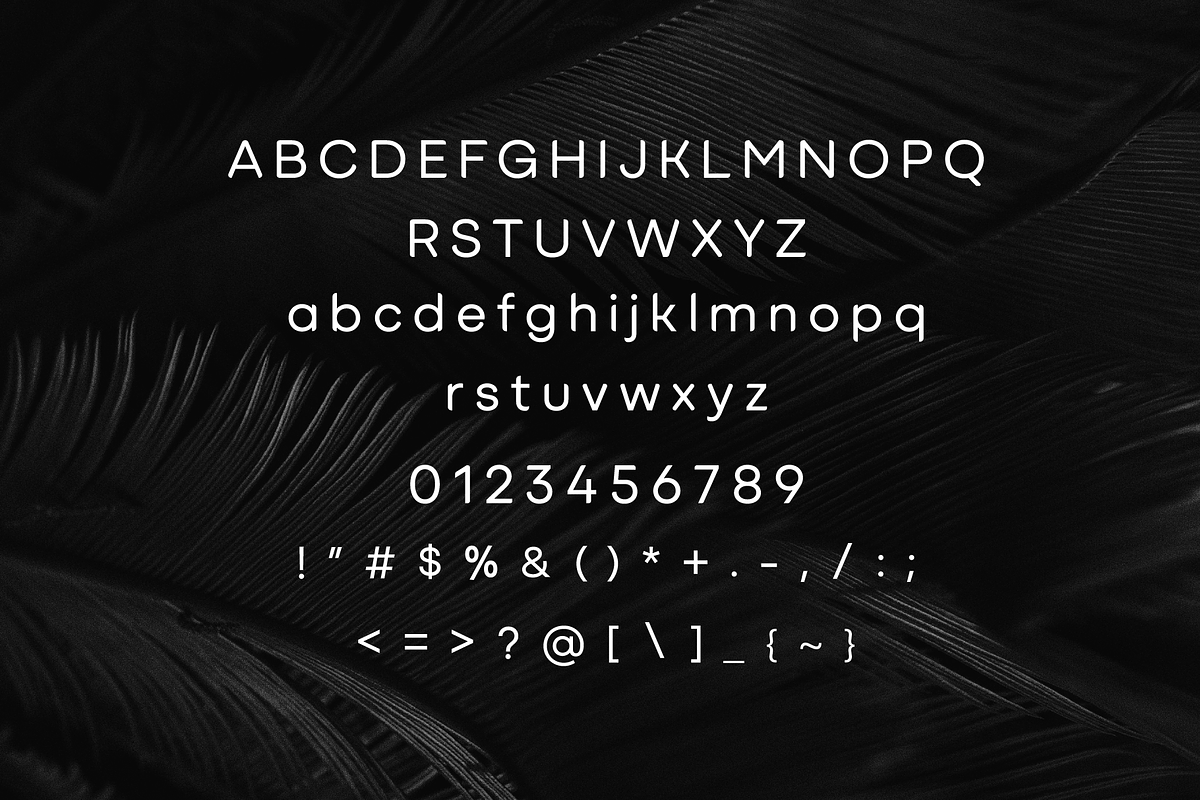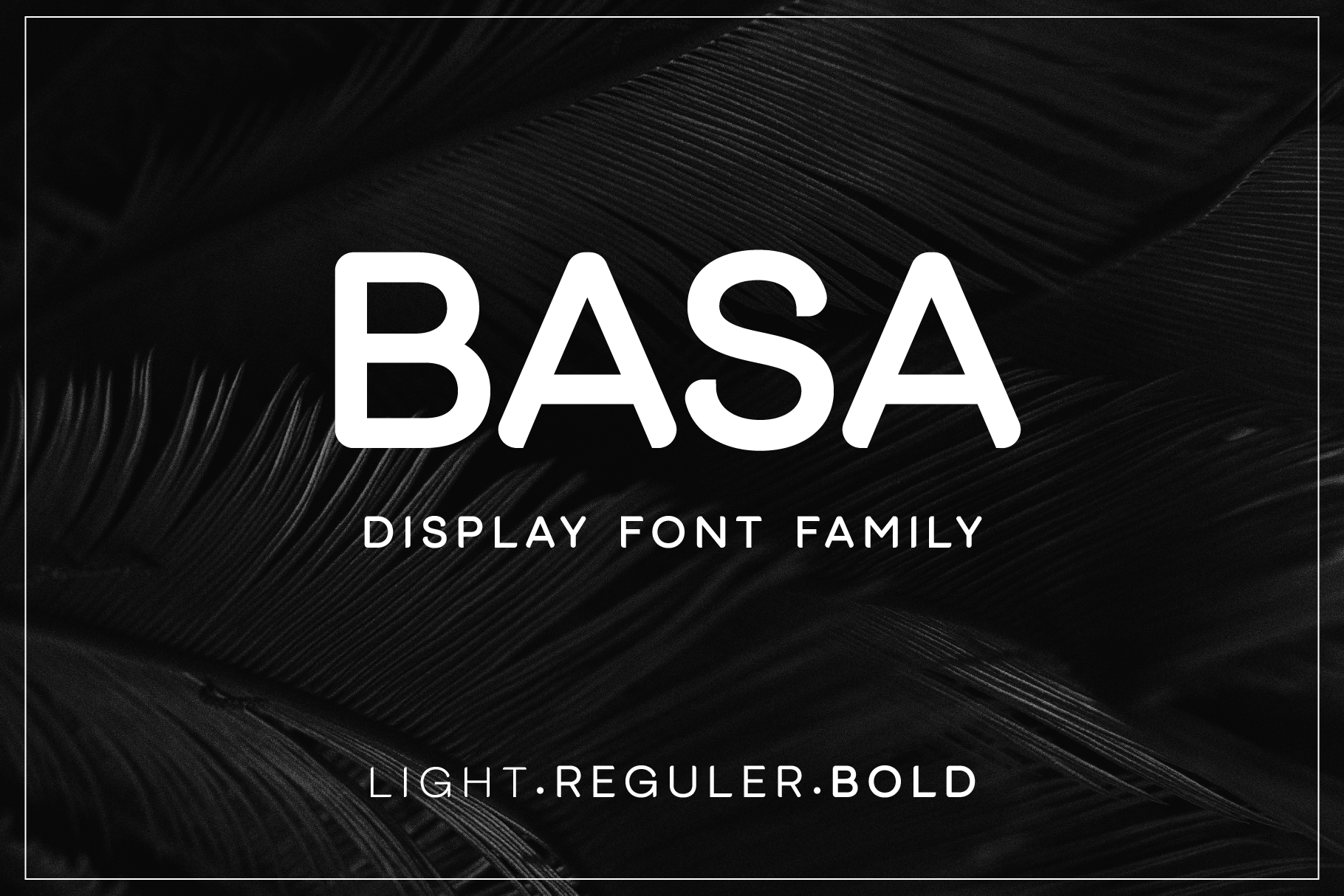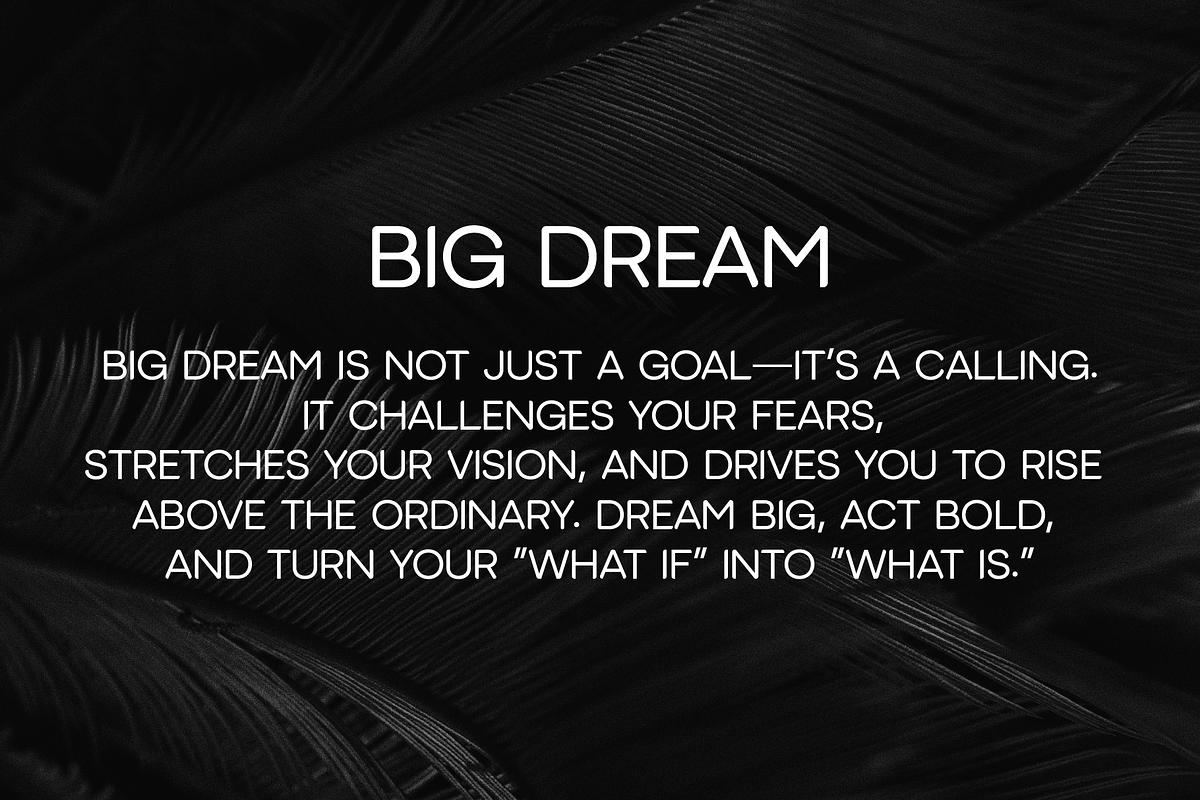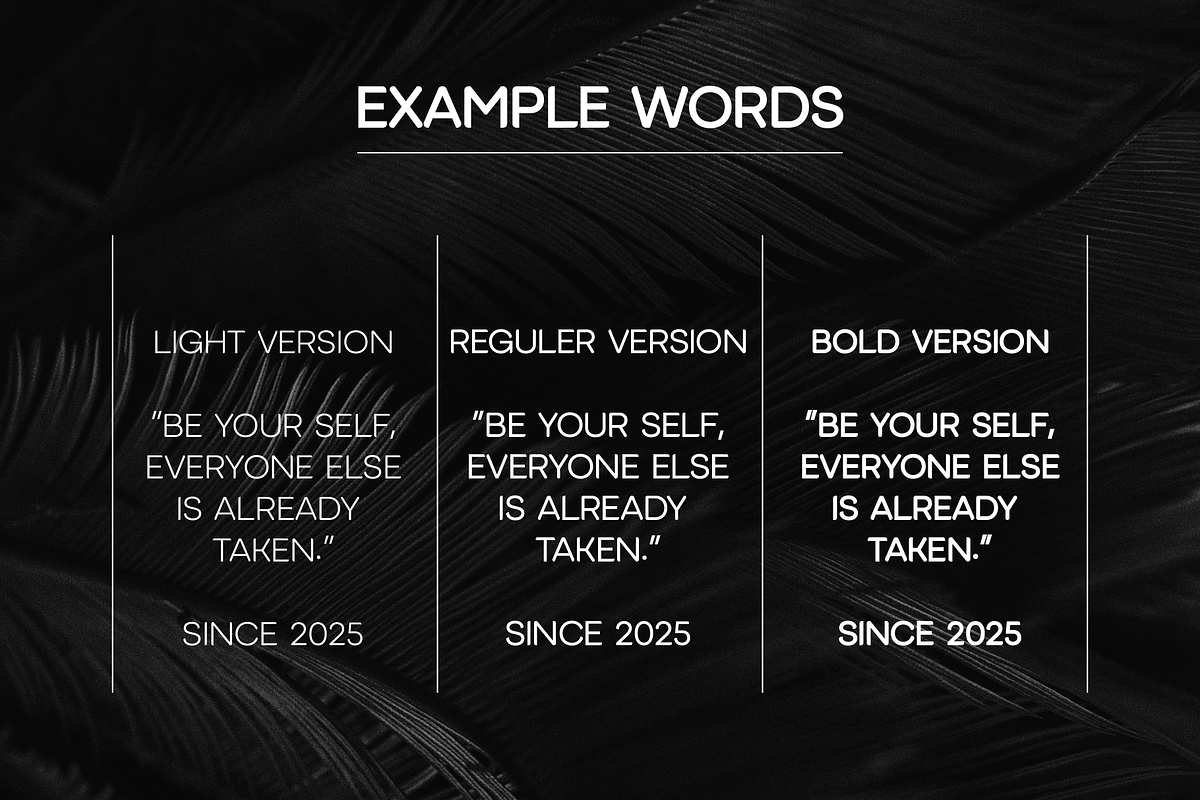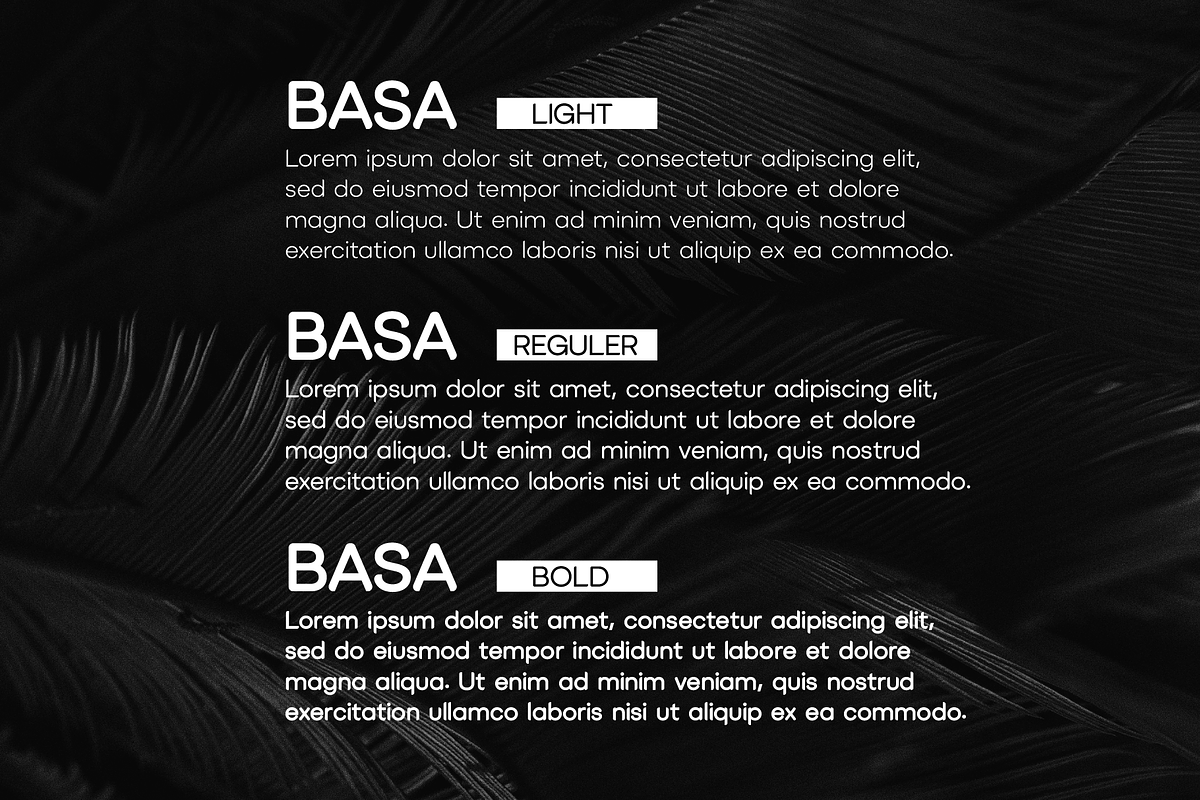
Basa Sans Serif Font
Basa is a new addition to the world of typography. This font is casual, friendly, and perfect for any kind of creative endeavor you may be using.
Contains all capital letters, numbers, and basic punctuation.